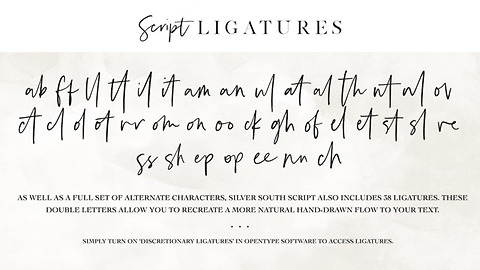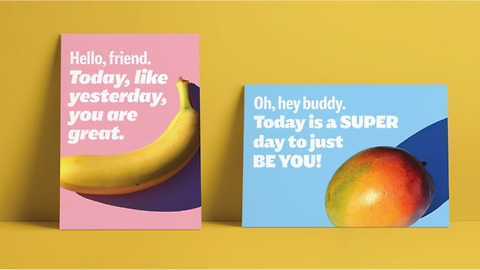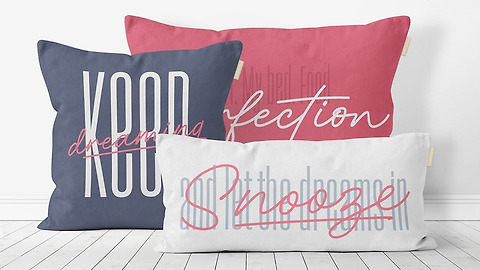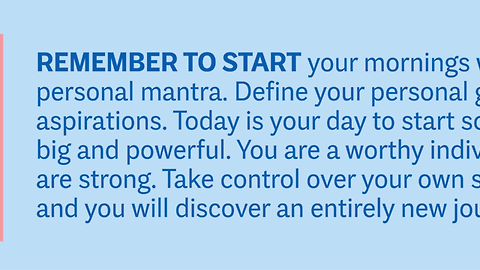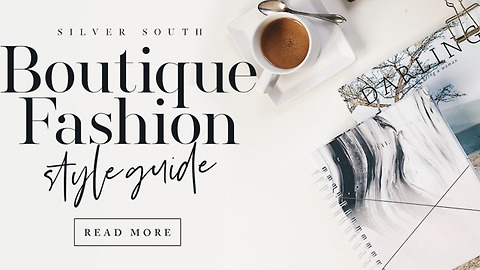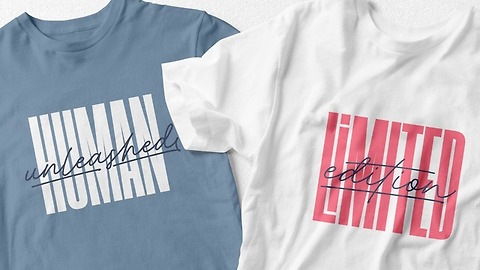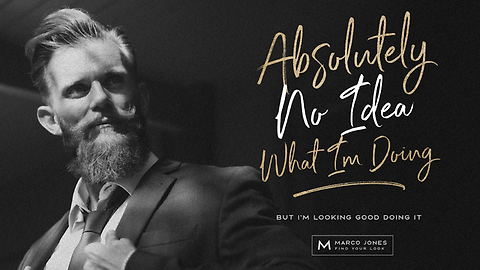
Malden Sans
by Monotype
by Set Sail Studios
Silver South Font Duo
by Rook Supply
Point Blair is a script typeface that mimics natural handwriting and signature styles.
by My Creative Land
Adventures Unlimited Script